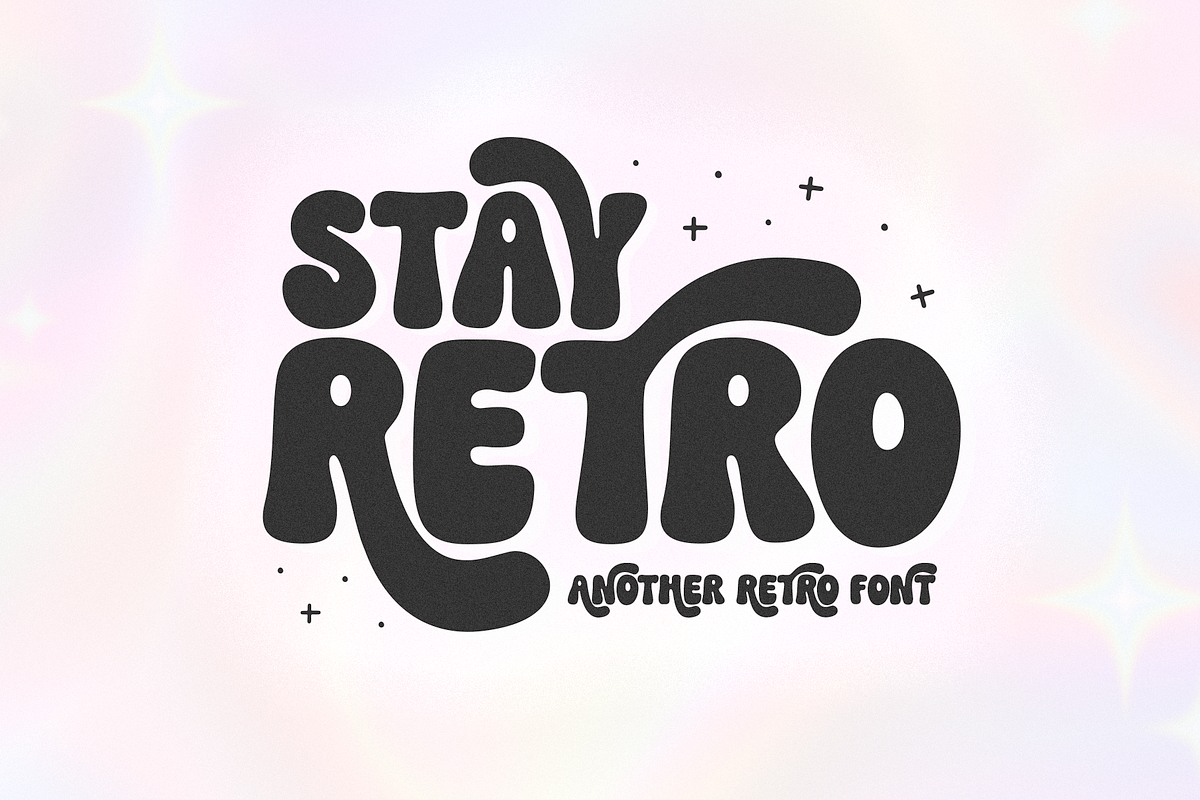
Stay Retro Font Free Download is a bold and playful swash typeface that brings the funky charm of the ‘70s and ‘80s right into your modern designs. With its groovy curves, exaggerated terminals, and nostalgic flair, this font is perfect for vintage branding, t-shirts, posters, album covers, and social media graphics that need a blast from the past.
Designed with flair and personality, Stay Retro features uppercase and lowercase letters, stylish swashes, numerals, and punctuation—offering tons of creative flexibility. It’s ideal for standout headlines, logos, or anything that needs to ooze retro vibes.
Whether you’re channeling disco-era aesthetics or creating a throwback campaign, Stay Retro Font Free Download is a must-have in your design toolkit. Try it in personal or preview projects to get that nostalgic look and feel. For any commercial use, be sure to obtain the proper license. Bring the past to life with this vibrant and expressive retro swash font.